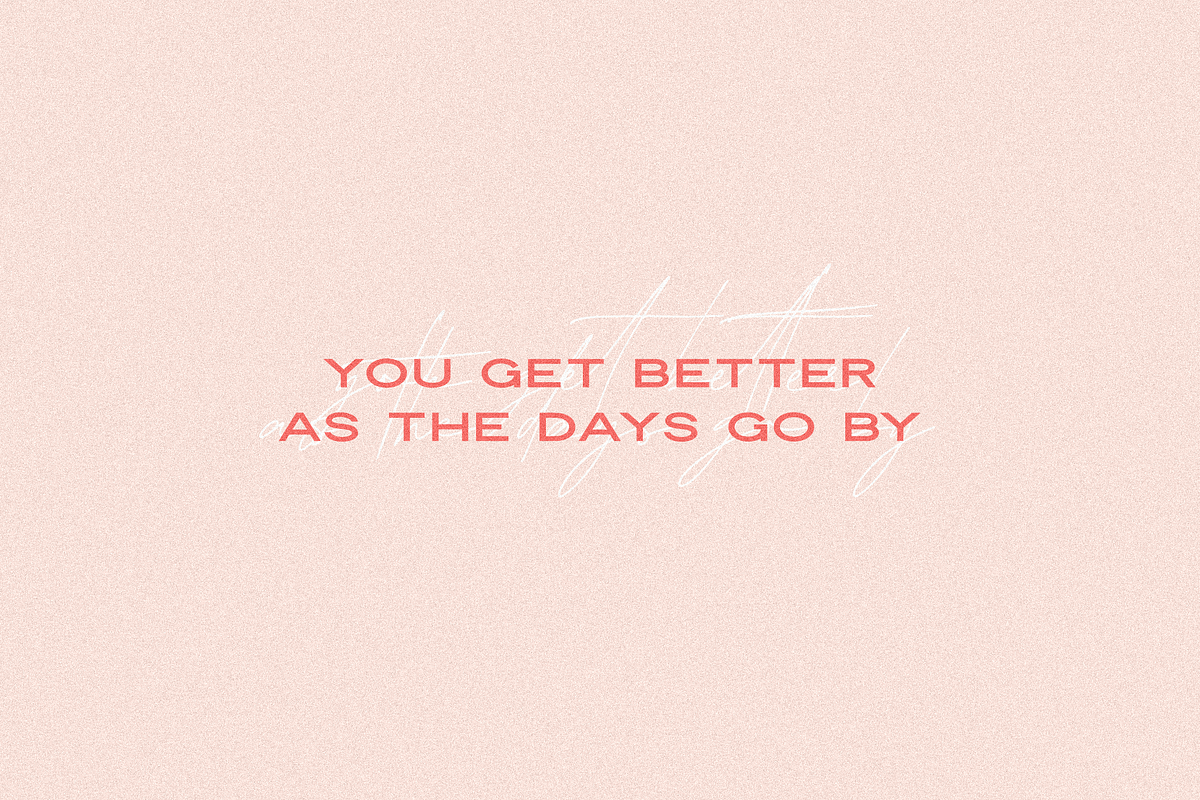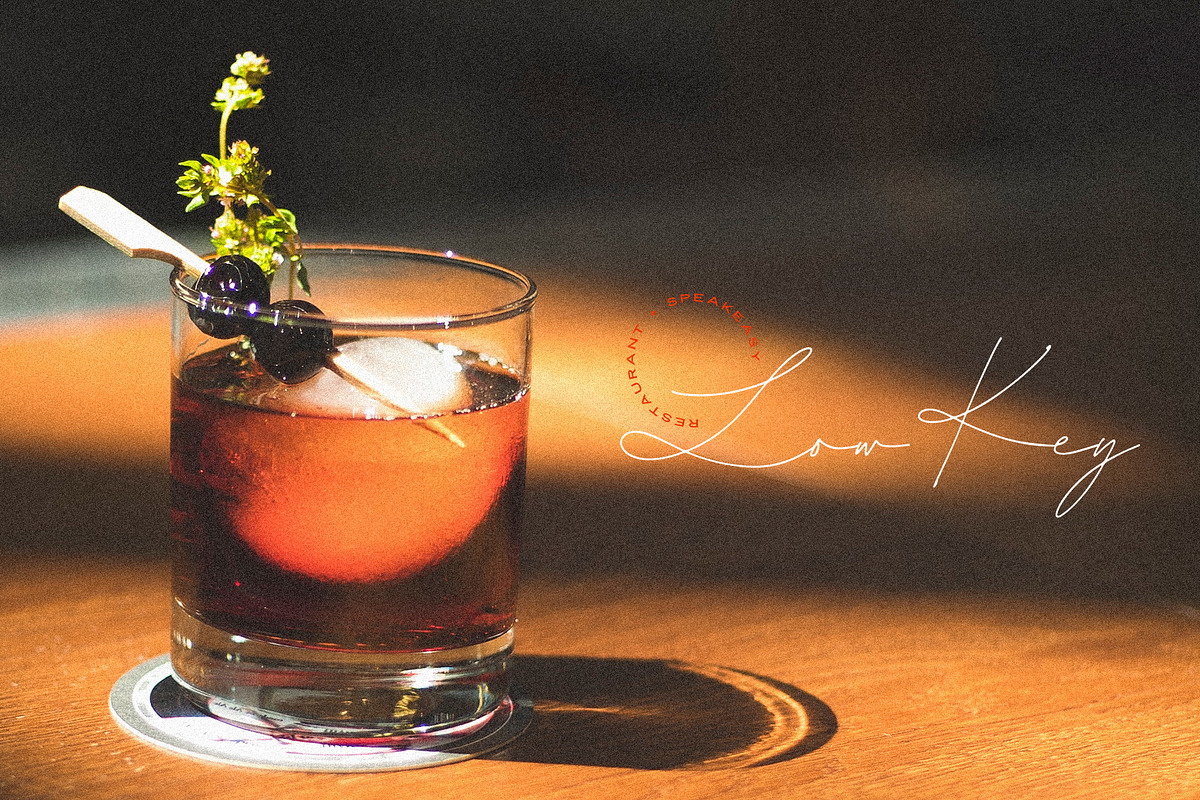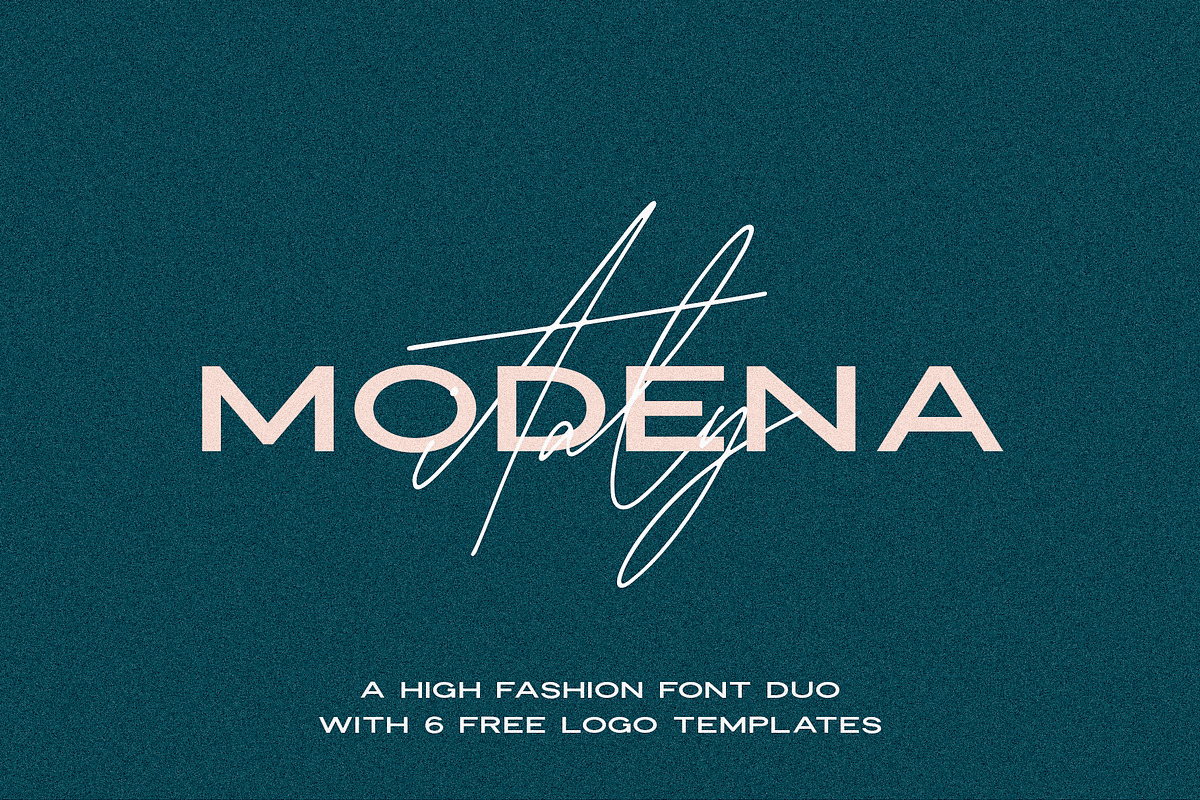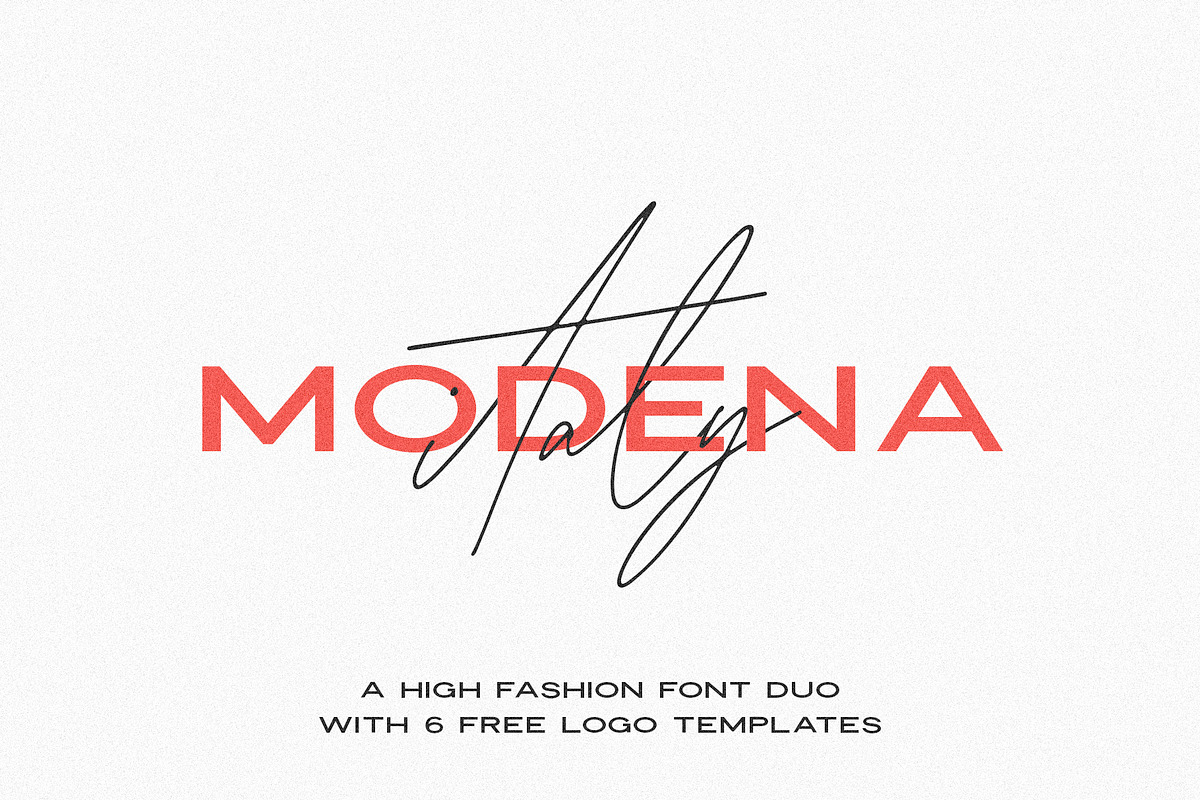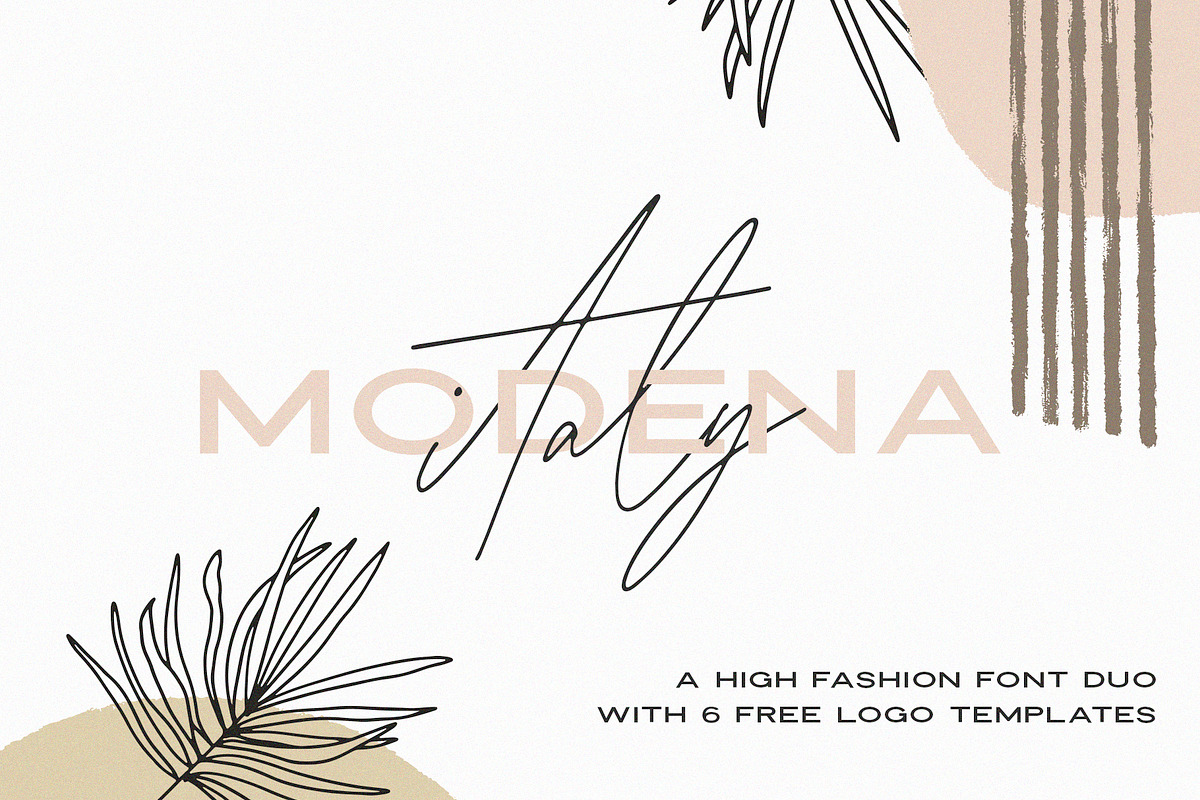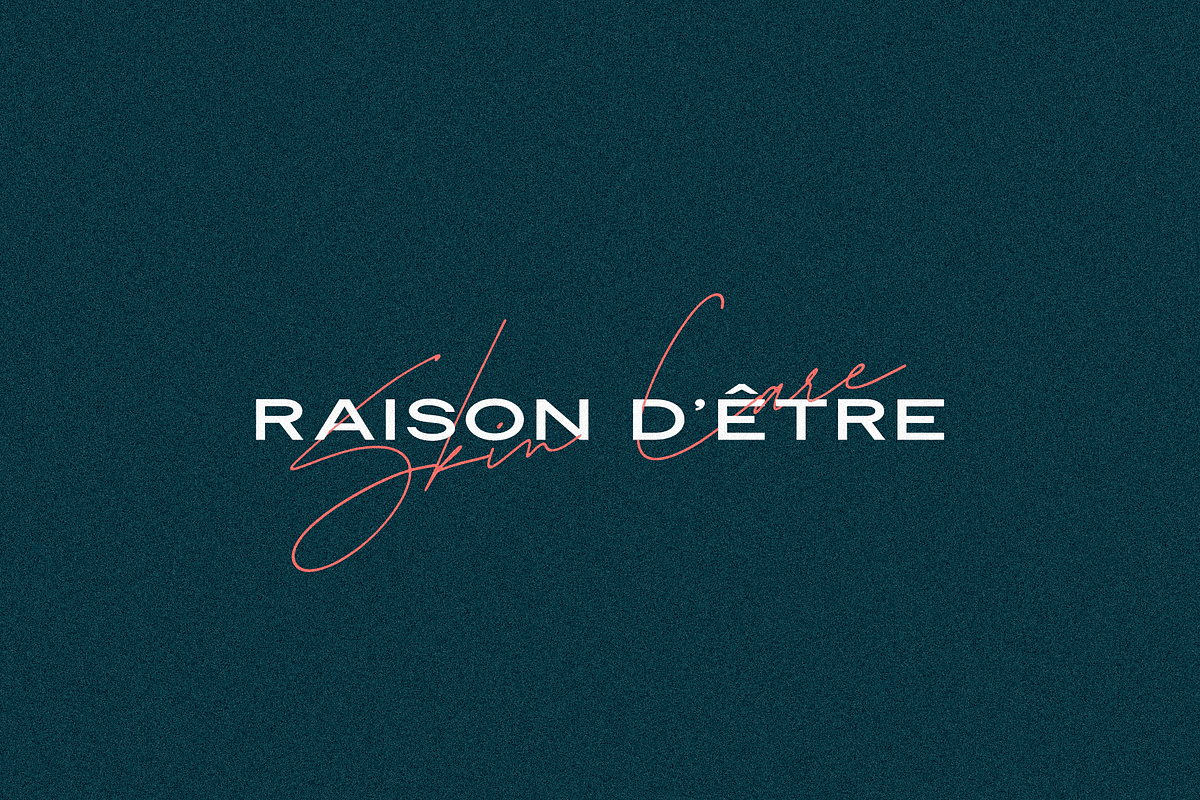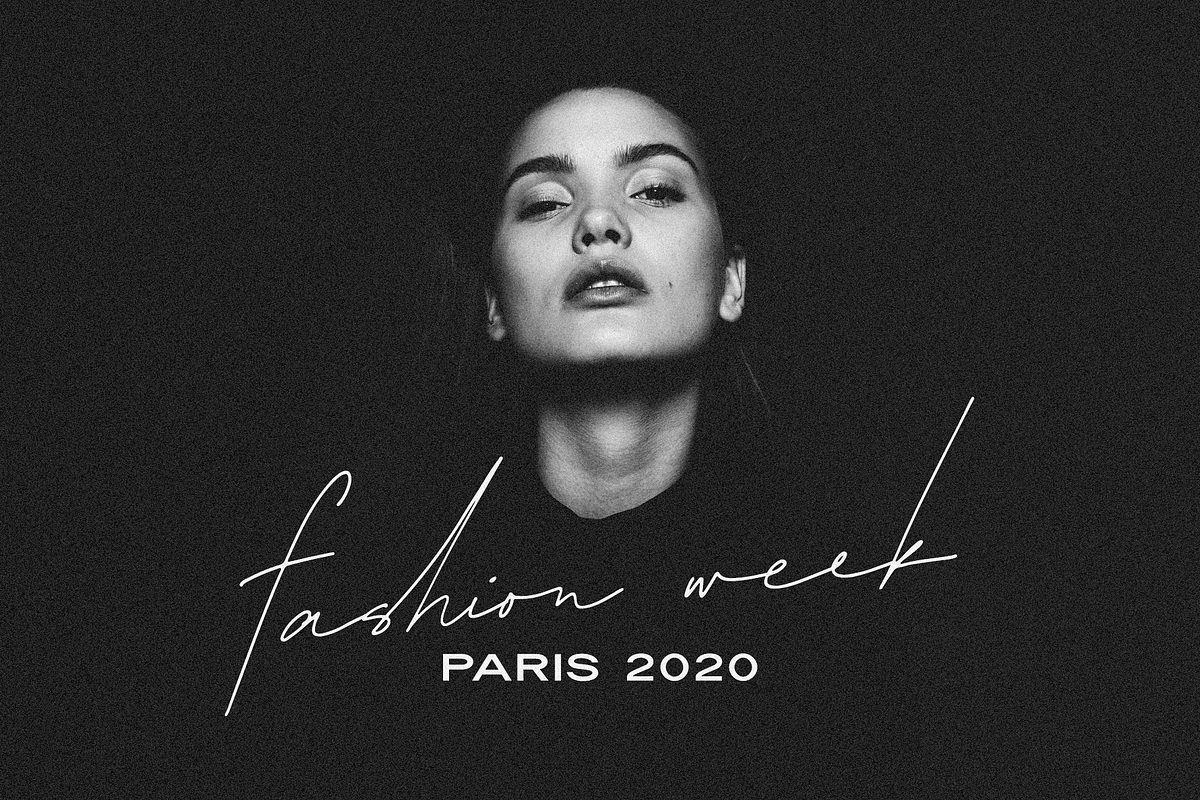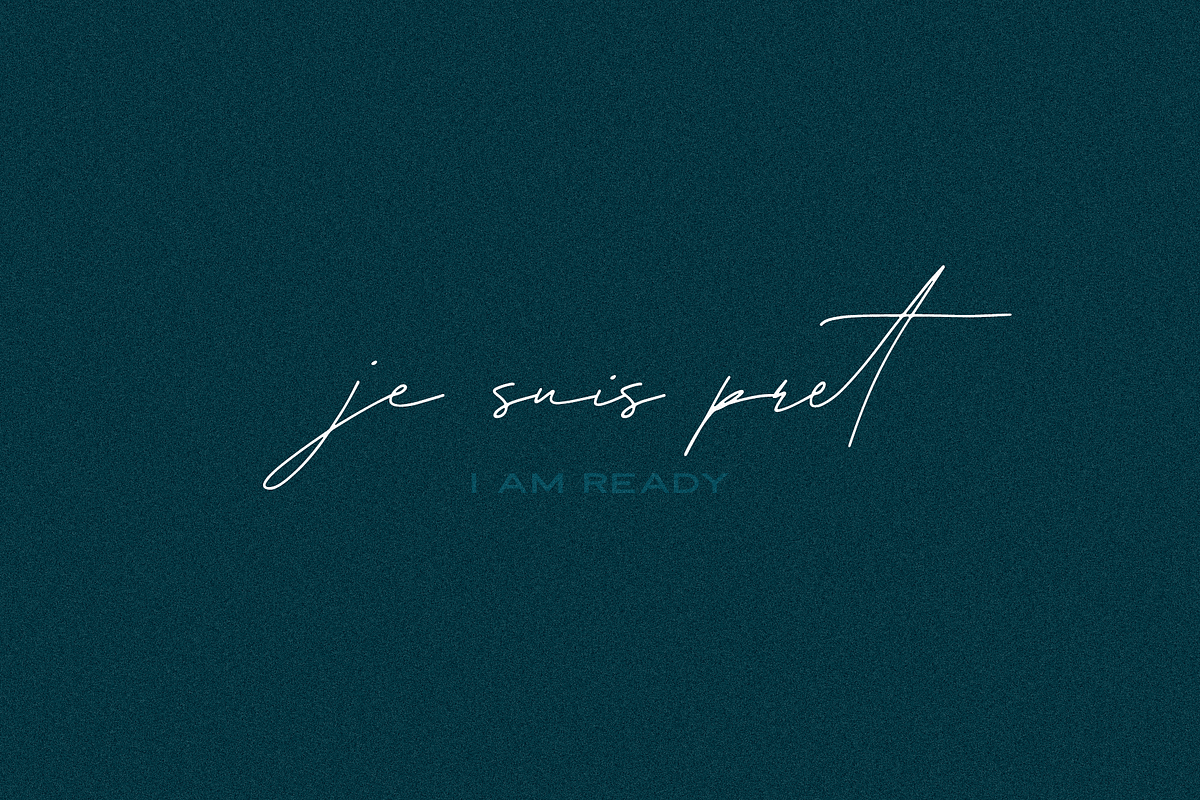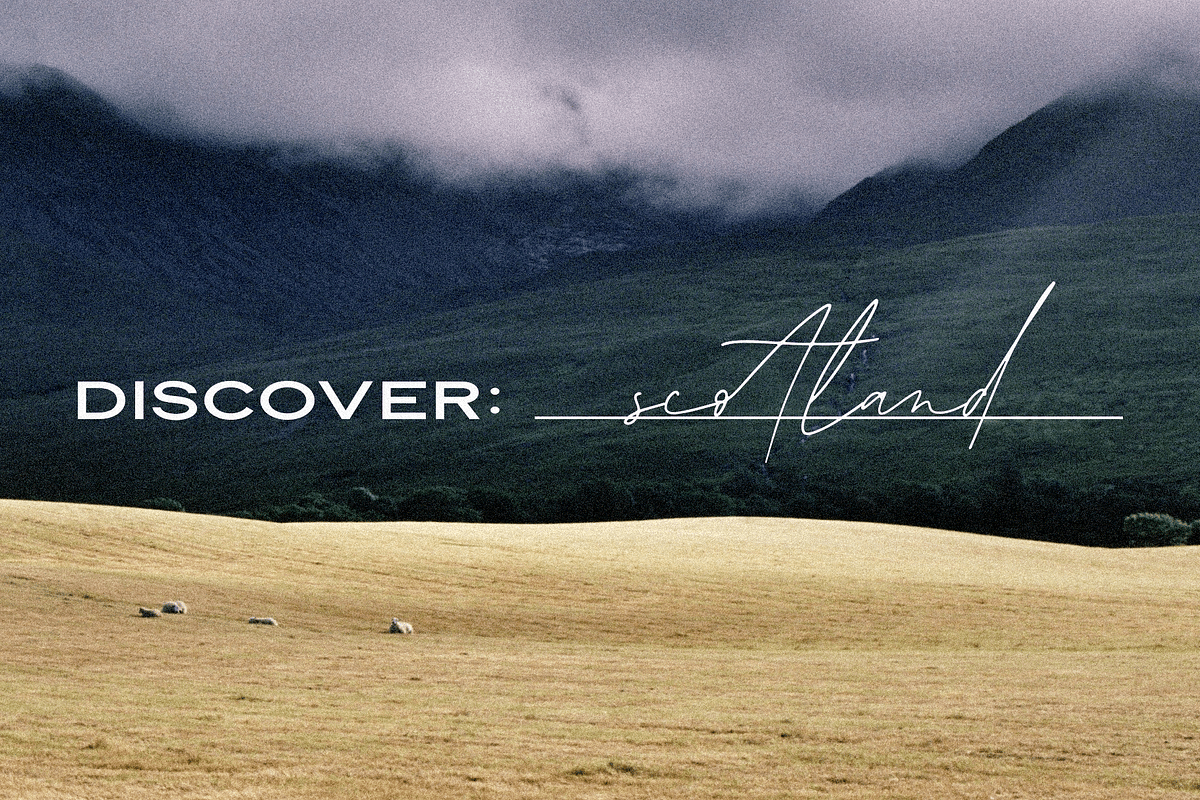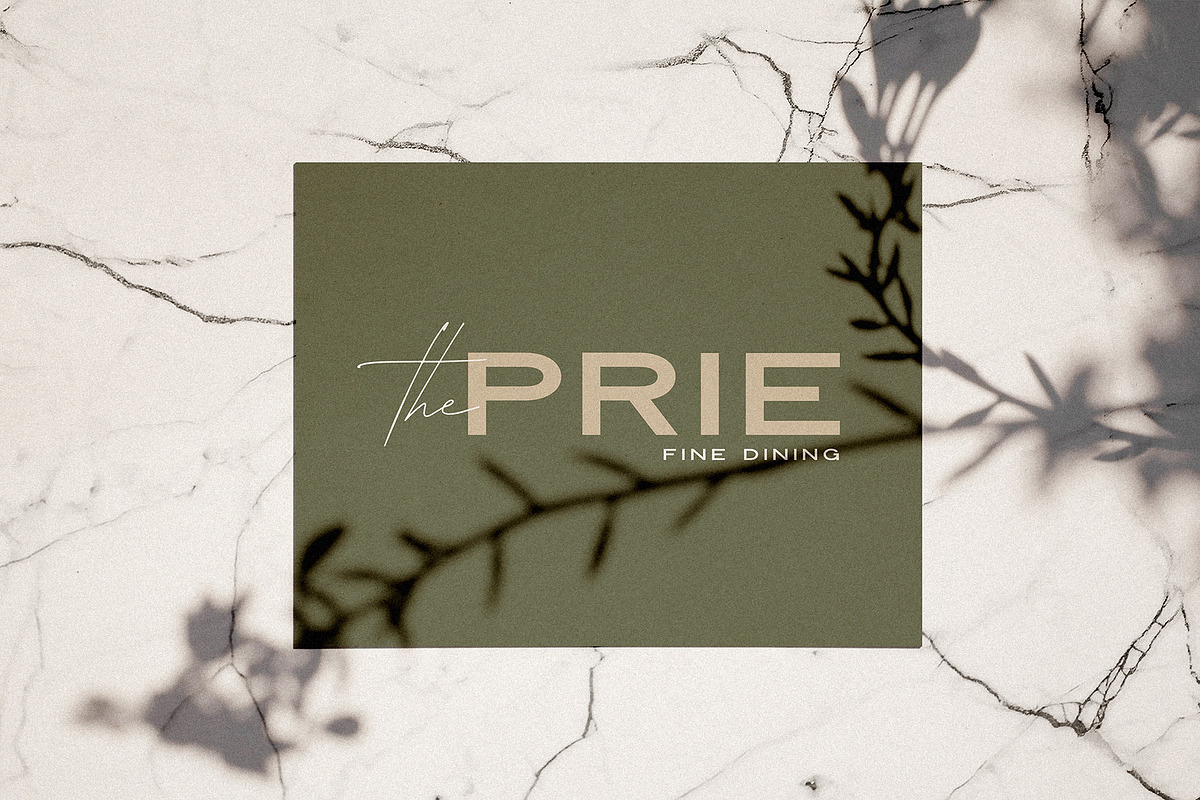
Modena | Duo with 6 Free Logos
Modena is a beautiful high fashion font duo that makes for gorgeous logos, posters, wedding invitations, blog posts, social media, and more!
I love using them together with layer masks in Photoshop, so it looks like the script is running through the lines of the sans serif. The sans looks stunning with tracking set to 220, as well as where it falls normally at 0!
Modena Script includes over 50 ligatures to make everything look totally hand-done, and alternates for each letter.
- Upper + Lowercase Letters w/ alternates
- Non-English support
- 50+ Ligatures